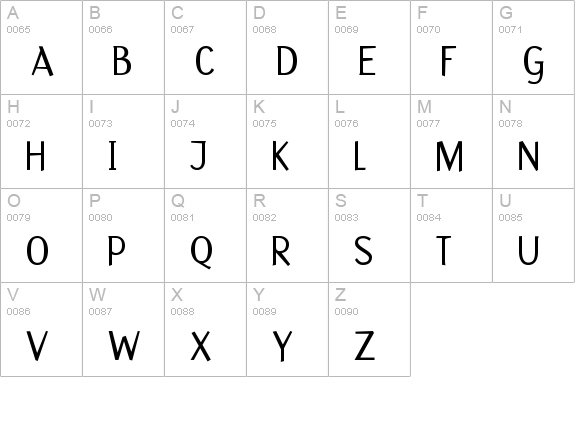
Fasciani-Senza-Regular is the standard, neutral variant in the Fasciani typeface family \xE2\x80\x94 well suited to general body text, paragraphs, and standard typographic work.
Fasciani-Senza-Regular is a modern and stylish font that exudes elegance and sophistication. Its clean lines and sleek design make it perfect for a wide range of design projects, from branding to editorial work. The font's versatility allows it to be used in both print and digital media, adding a touch of class to any project. What makes Fasciani-Senza-Regular even more appealing is that it is available for free download at FontsMarket.com. This means that you can easily access this beautiful font without any cost, making it a valuable addition to your font collection. Don't miss out on the opportunity to enhance your designs with the timeless beauty of Fasciani-Senza-Regular - download it today and elevate your creations to the next level.